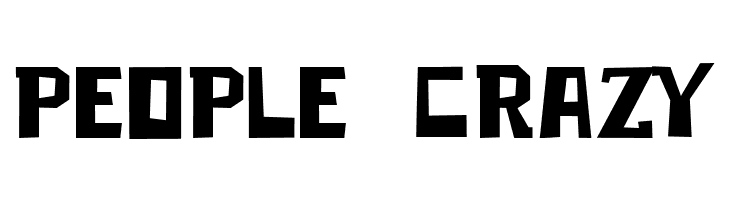
Morsal Font
- Font: Morsal
( Fonts by Tup Wanders - www.tupwanders.nl )
A playful, hand-drawn font with bold, irregular strokes and a whimsical style.